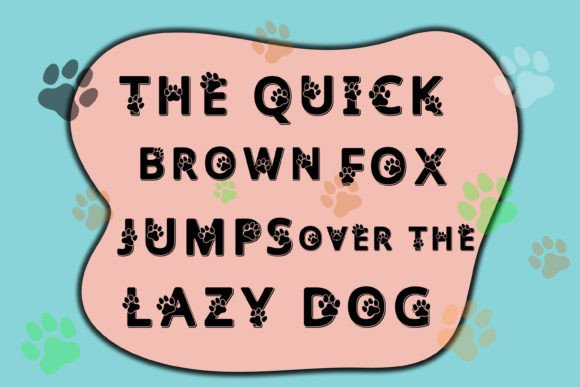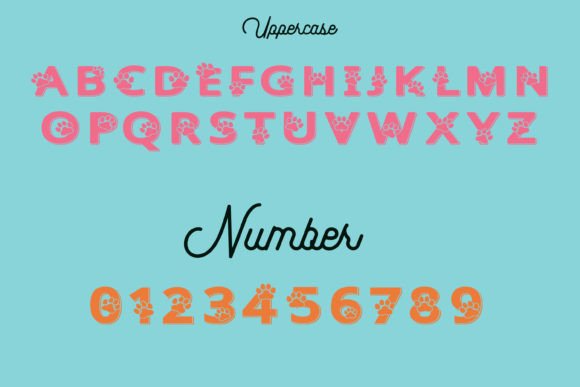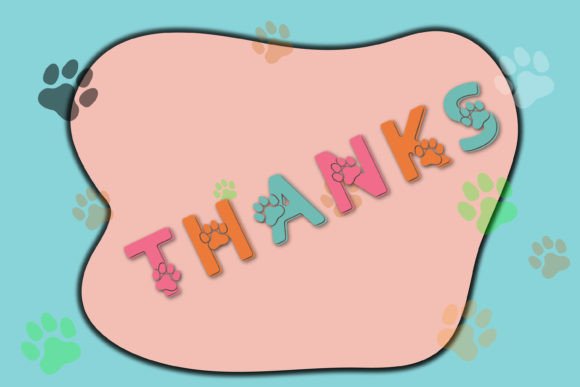
Unleash Joy and Whimsy with Dog Cat Font: Elevate Your Designs with a Vibrant Splash
Are you tired of using the same old fonts in your designs? Do you want to add a touch of personality and whimsy to your creative projects? Look no further than the Dog Cat Font, a vibrant and playful color font that’s sure to bring a smile to your audience’s faces. In this article, we’ll explore the features and benefits of this exciting font, and how it can elevate your design endeavors.
What is Dog Cat Font?
Dog Cat Font is a unique and colorful font that embodies the joy and playfulness of our beloved pets. With its bold and lively design, this font is perfect for adding a splash of personality to your creative projects. Whether you’re working on branding initiatives, packaging designs, logotypes, or headlines, Dog Cat Font is sure to make your designs stand out.
Features of Dog Cat Font
- Color Font: Dog Cat Font is a color font, which means it comes with a range of vibrant colors that can add an extra dimension to your designs.
- Whimsical Design: The font features a playful and whimsical design that’s sure to bring a touch of fun and personality to your projects.
- Versatile: Dog Cat Font is versatile and can be used for a wide range of design projects, from branding and packaging to wedding invitations and more.
Benefits of Using Dog Cat Font
So why should you choose Dog Cat Font for your design projects? Here are just a few benefits of using this exciting font:
- Adds Personality to Your Designs: Dog Cat Font adds a touch of personality and whimsy to your designs, making them more engaging and memorable.
- Perfect for Branding and Marketing: The font is perfect for branding and marketing initiatives, as it can help your brand stand out and leave a lasting impression on your audience.
- Great for Creative Projects: Dog Cat Font is ideal for a wide range of creative projects, from wedding invitations and party decorations to packaging designs and more.
- Easy to Read: Despite its playful design, Dog Cat Font is easy to read, making it perfect for headlines, titles, and other design elements.
Tips and Tricks for Using Dog Cat Font
Here are a few tips and tricks for getting the most out of Dog Cat Font:
- Use it for Headlines and Titles: Dog Cat Font is perfect for headlines and titles, as it’s easy to read and adds a touch of personality to your designs.
- Experiment with Colors: Don’t be afraid to experiment with the font’s color options to find the perfect combination for your design.
- Pair it with Other Fonts: Dog Cat Font can be paired with other fonts to create a unique and interesting design.
- Use it for Branding and Marketing: The font is perfect for branding and marketing initiatives, as it can help your brand stand out and leave a lasting impression on your audience.
In conclusion, Dog Cat Font is a vibrant and playful color font that’s sure to bring a touch of joy and whimsy to your design projects. With its bold and lively design, this font is perfect for adding a splash of personality to your creative projects. Whether you’re working on branding initiatives, packaging designs, logotypes, or headlines, Dog Cat Font is sure to make your designs stand out. So why not give it a try and experience the transformative power of this uplifting font in your designs?
Introducing a vibrant splash to your creative projects, our color font embodies joy and whimsy that is bound to elevate your design endeavors. An absolute fit for branding initiatives, packaging designs, riveting logotypes, and gripping headlines, it also adds a sprinkle of charm to wedding invitations and similar creatives. Embrace and experience the transformative power of this uplifting font in your designs.